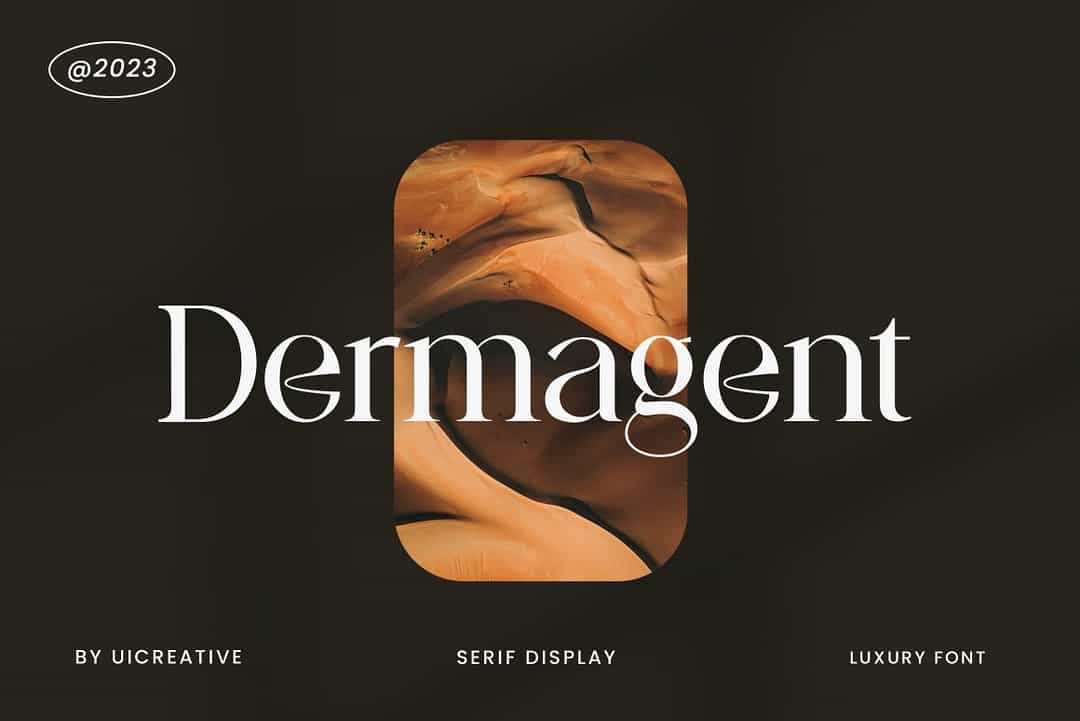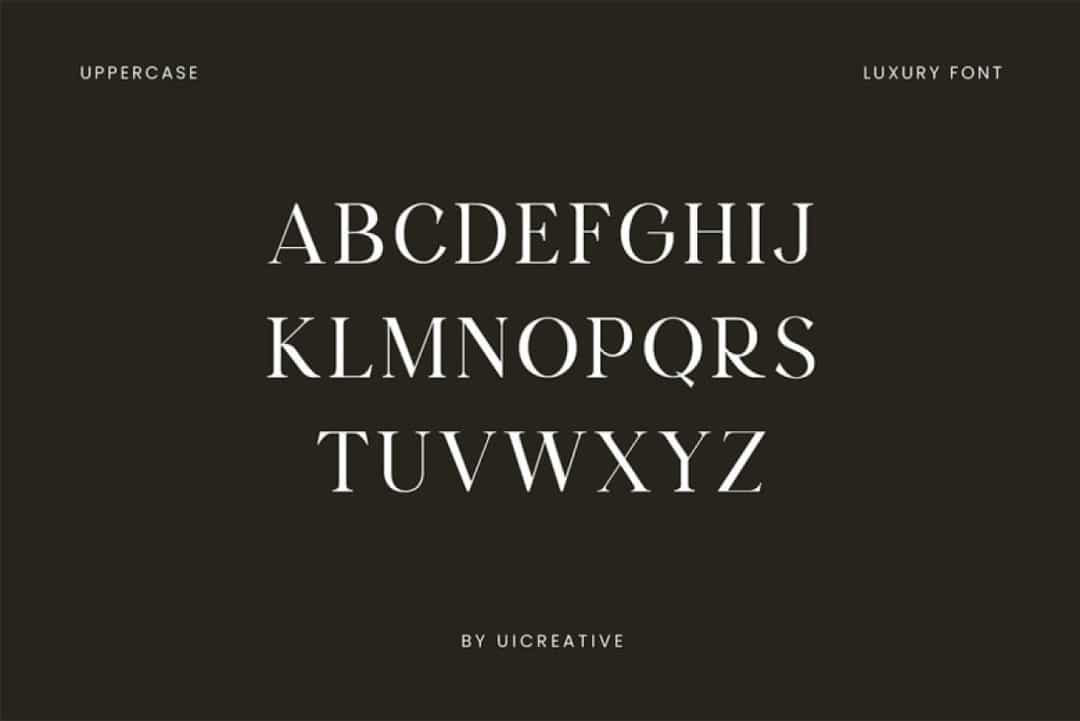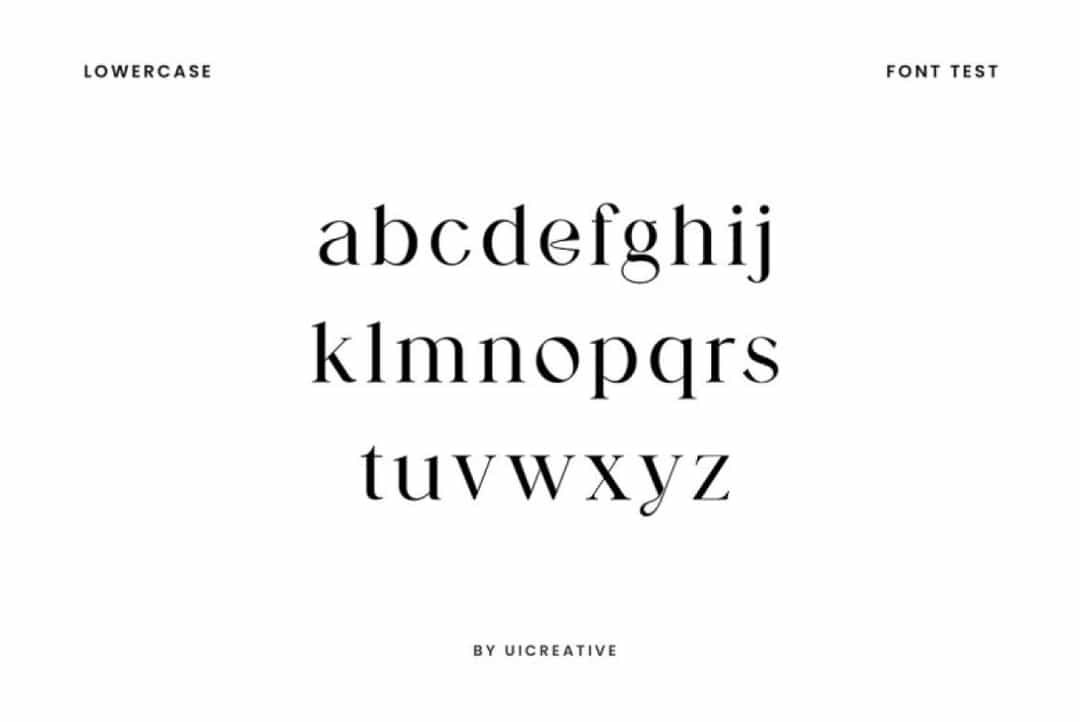
Dermagent is an elegant, modern display serif font perfect for various designs including logos, signatures, stationery wedding, typography quote magazines or book covers, headers on websites as well as packaging design clothing branding design and much more.